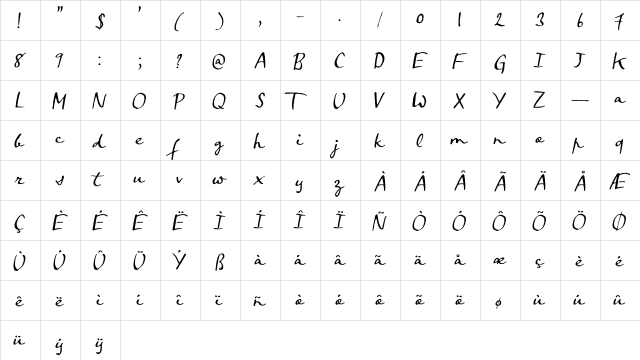
Crowfeather Script DEMO Regular
Design Context for Crowfeather Script DEMO Typeface
Crowfeather Script DEMO brings a calligraphic fluidity to the page — its connecting strokes and expressive curves give it an unmistakably human quality.
Font Pairing: Combine Crowfeather Script DEMO with a simple geometric sans for maximum contrast — the tension between flowing curves and clean structure is a classic typographic pairing.
Pro Tip: Pair Crowfeather Script DEMO with a clean sans-serif for supporting text. The contrast between fluid script and geometric structure creates an elegant typographic hierarchy.